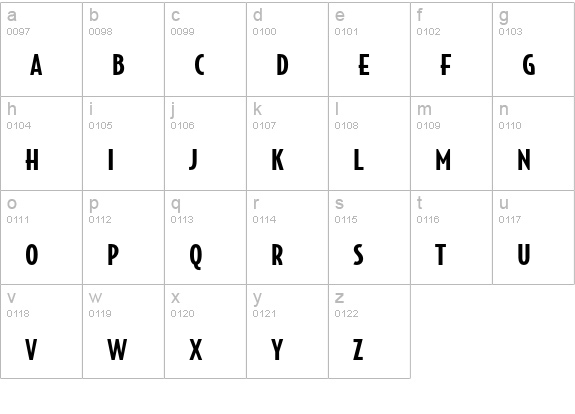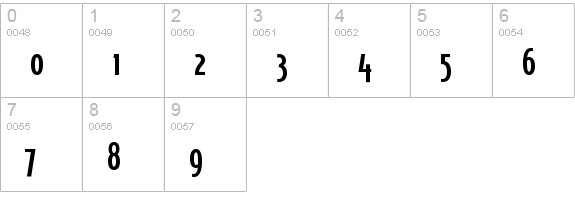
BodegaSans-MediumSmallcaps is a modern and versatile font that combines sleek design with a touch of elegance. Its medium weight and small caps style make it perfect for a wide range of design projects, from branding to editorial design. The clean lines and balanced proportions of this font give it a sophisticated and contemporary look that will elevate any project. What sets BodegaSans-MediumSmallcaps apart is that it is available for free download at FontsMarket.com. This means that you can easily access and use this high-quality font without any cost, making it a valuable addition to your design toolkit. Whether you're working on a professional project or a personal one, BodegaSans-MediumSmallcaps is sure to impress with its timeless style and versatility. Download it today and take your designs to the next level!